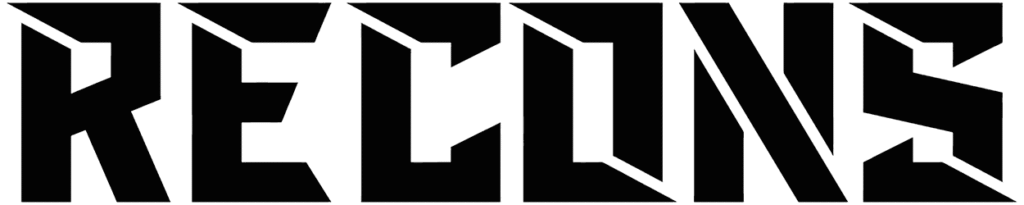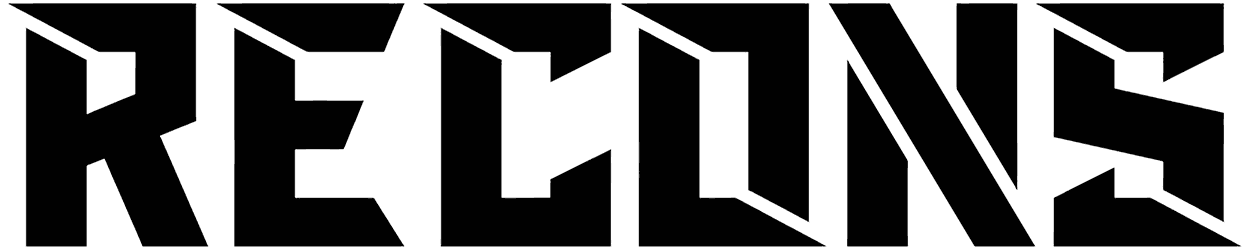
Recons Font
Since its characters are not uniformly straight, this all-caps esports font can add a sense of modernity, futuristic, dynamic, and precision to any kind of graphic content. Considering its numerous advantages, not fully supporting numbers is not a serious problem.